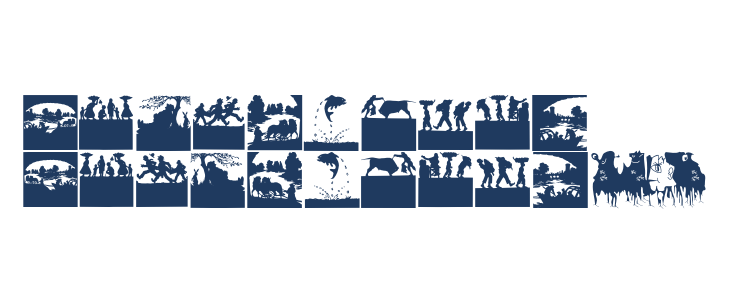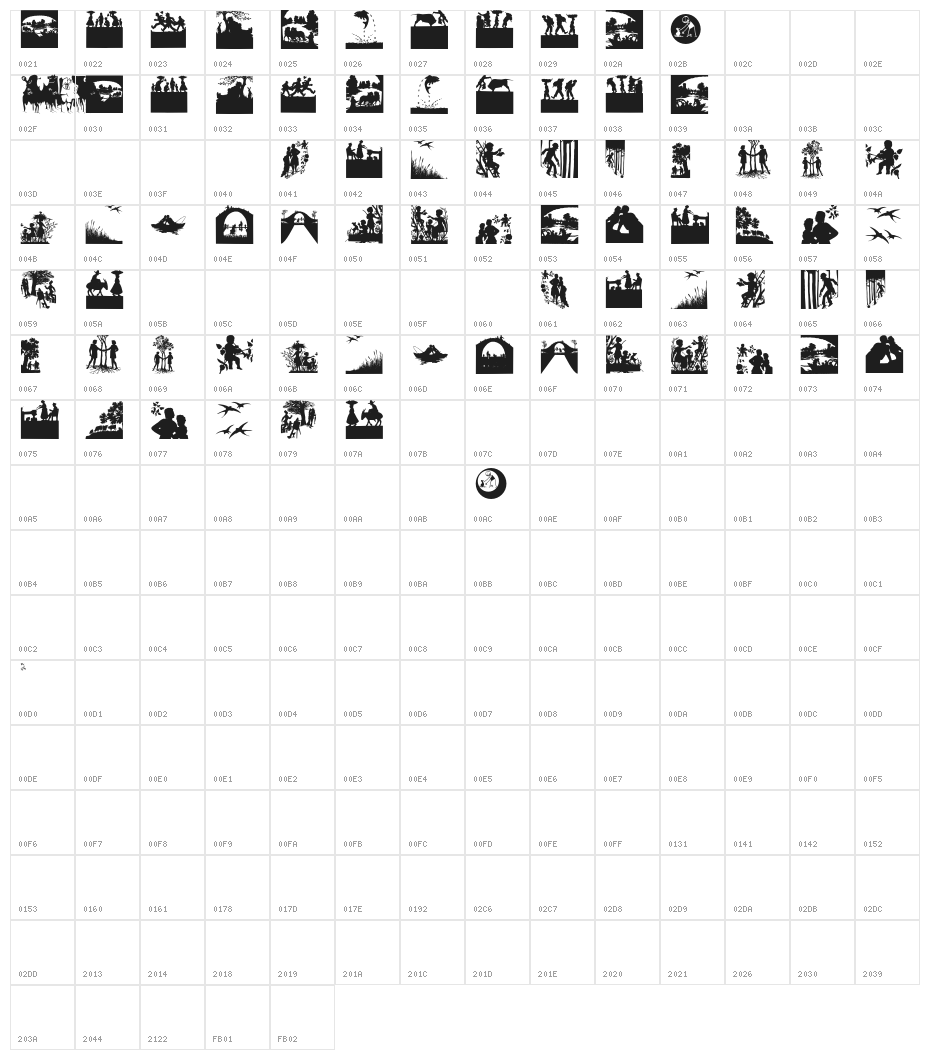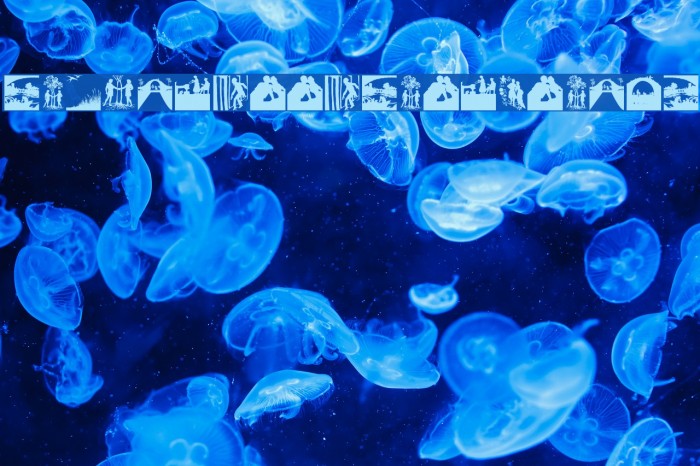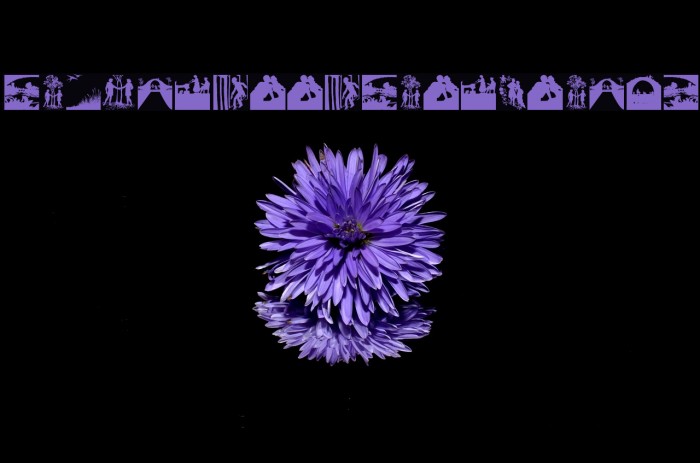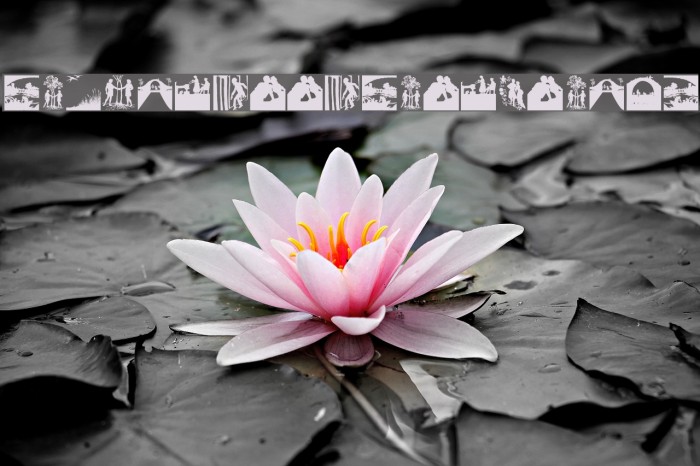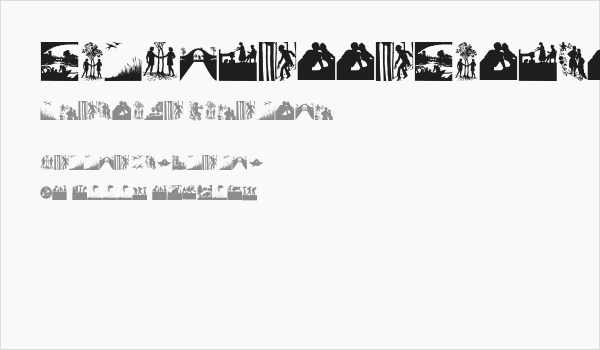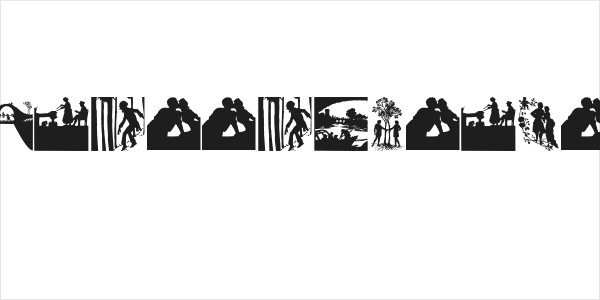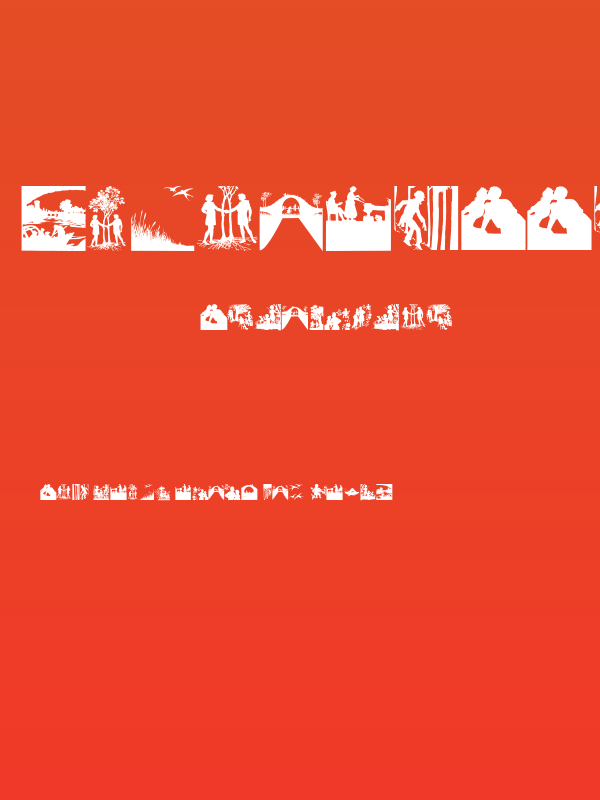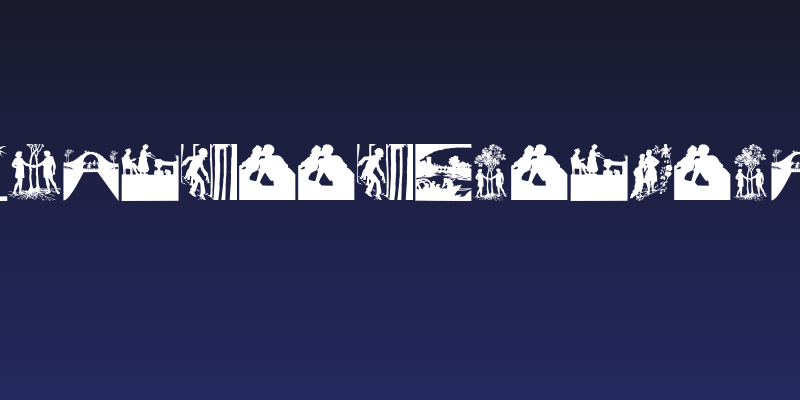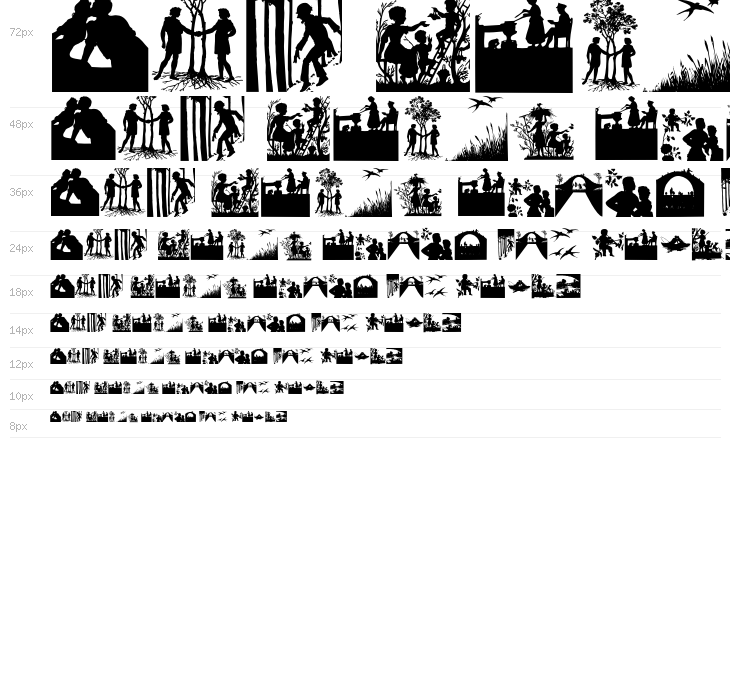
SilhouetteSituations Font
SilhouetteSituations Description
A decorative display font composed of detailed black silhouette illustrations depicting various scenes, such as children playing, animals, nature, and whimsical activities, with each character represented by a unique vignette. The font is highly pictorial, with no traditional letterforms, and each glyph is framed or grounded by a solid black base.
| Overall Style | Decorative, Whimsical, Narrative |
| Use Case | Headlines, Logos, Themed graphics, Decorative initials |
| Proposed Projects | ChildrenΓ’β¬β’s books, storybook titles, event posters, invitations, themed branding, educational materials. |